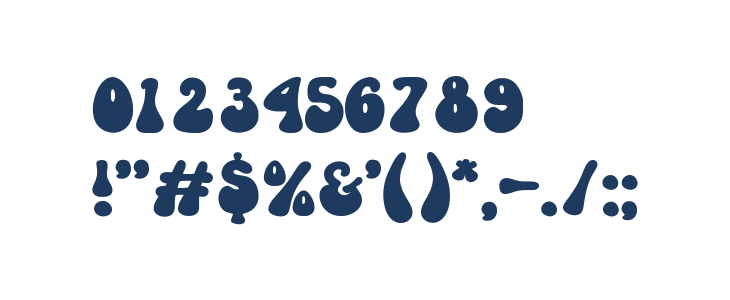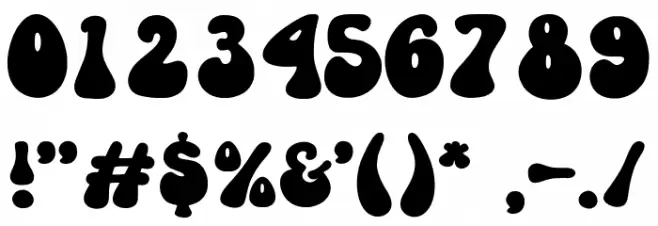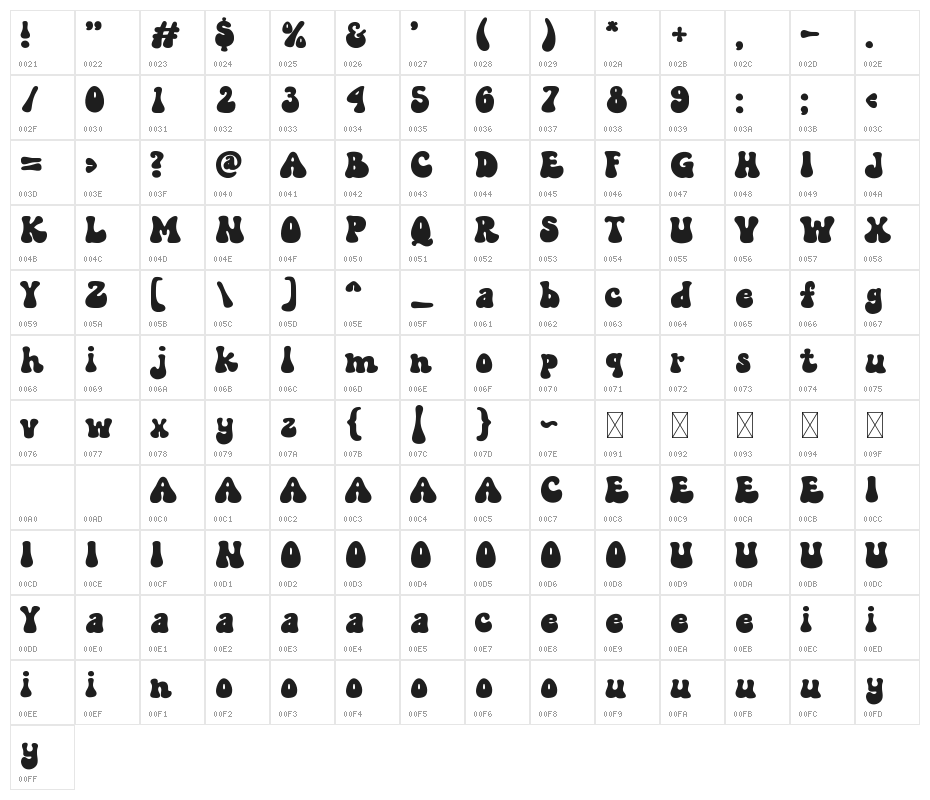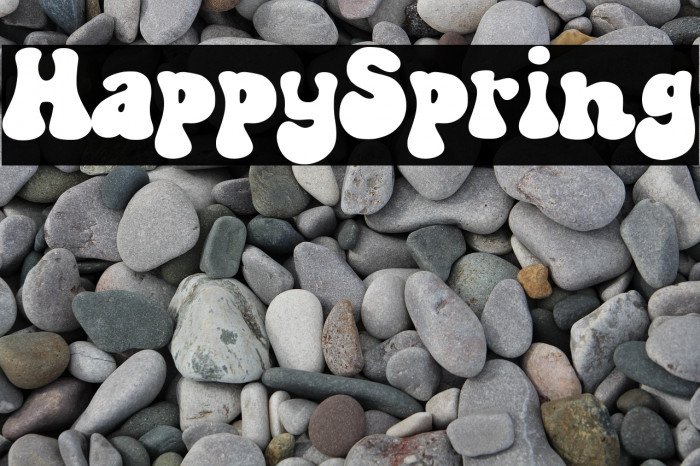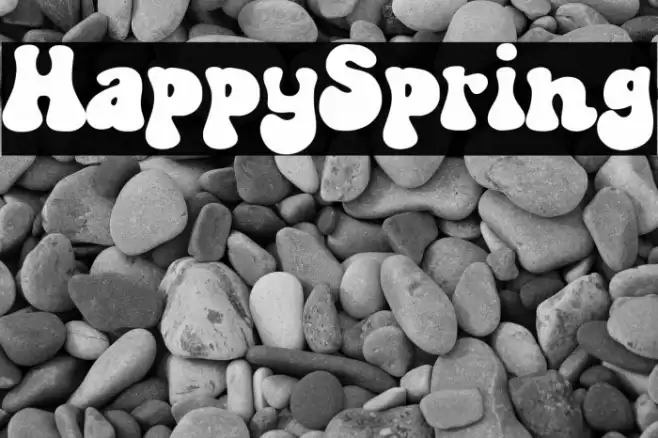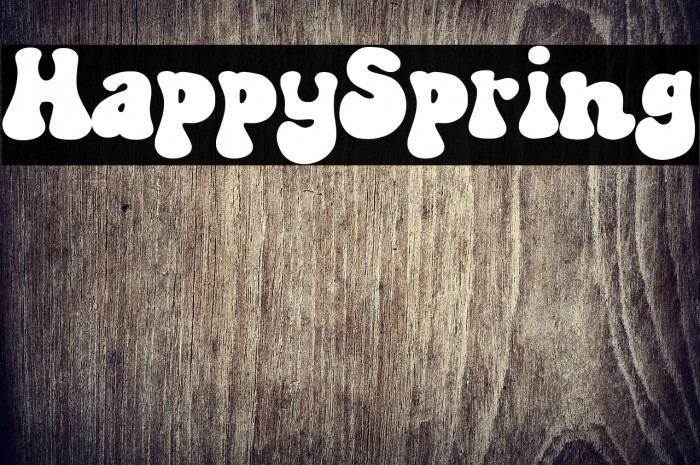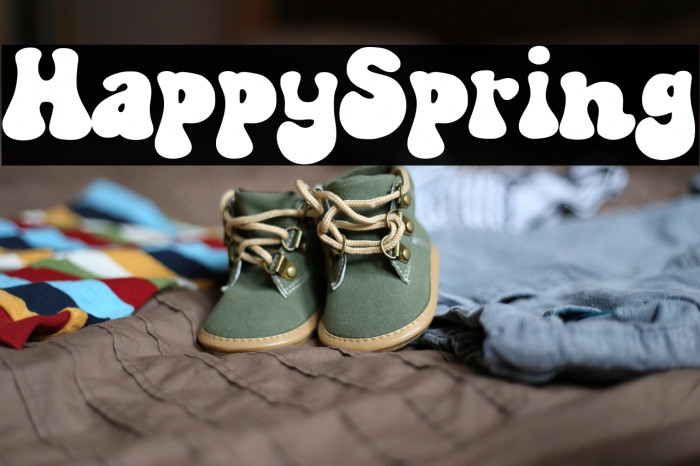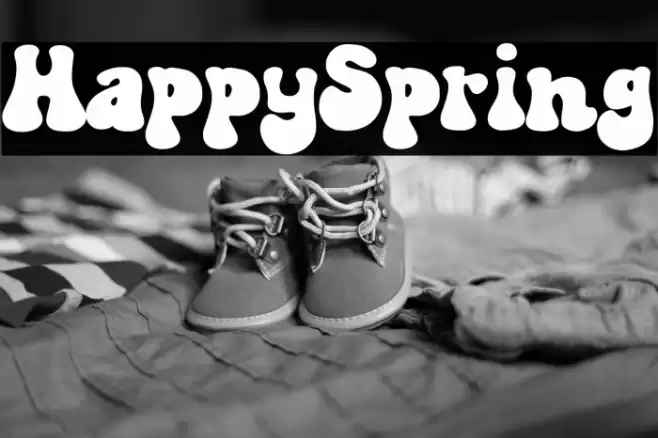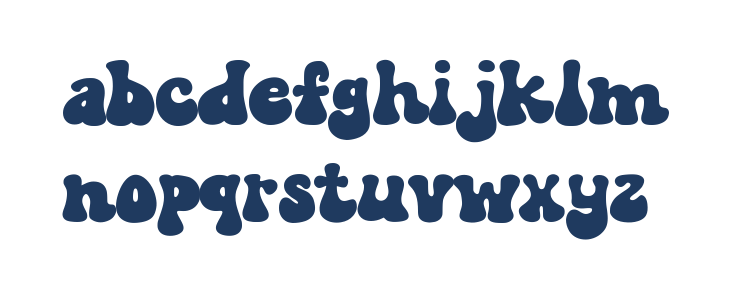
HappySpring Font
HappySpring Description
This playful and bold font features thick, rounded characters that exude a sense of fun and whimsy. The letters have a bubbly appearance, with exaggerated curves and a slightly uneven baseline that adds to its quirky charm. The numbers and special characters maintain this playful style, making it suitable for creative and informal designs. Its unique style is eye-catching and memorable, perfect for projects that aim to stand out with a cheerful and lively aesthetic.
| Proposed Projects | Ideal for children's books, party invitations, playful branding, and creative posters. |